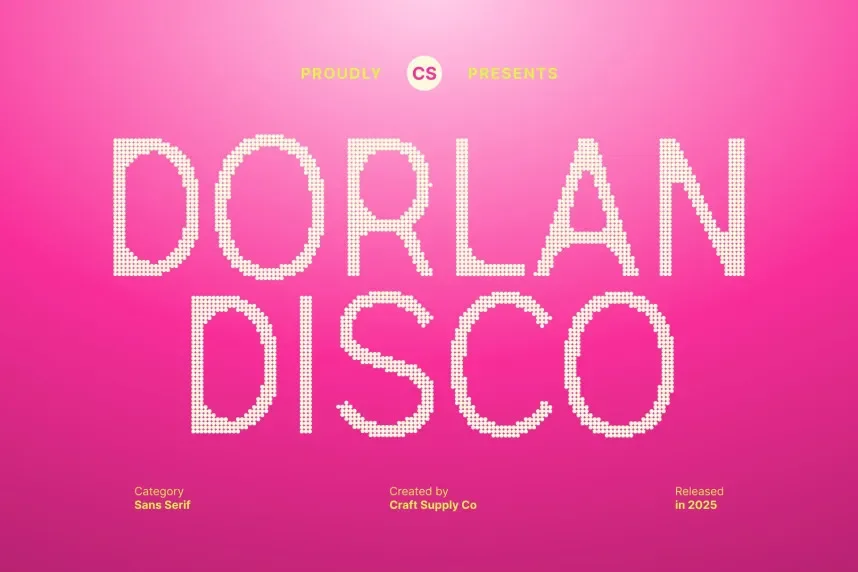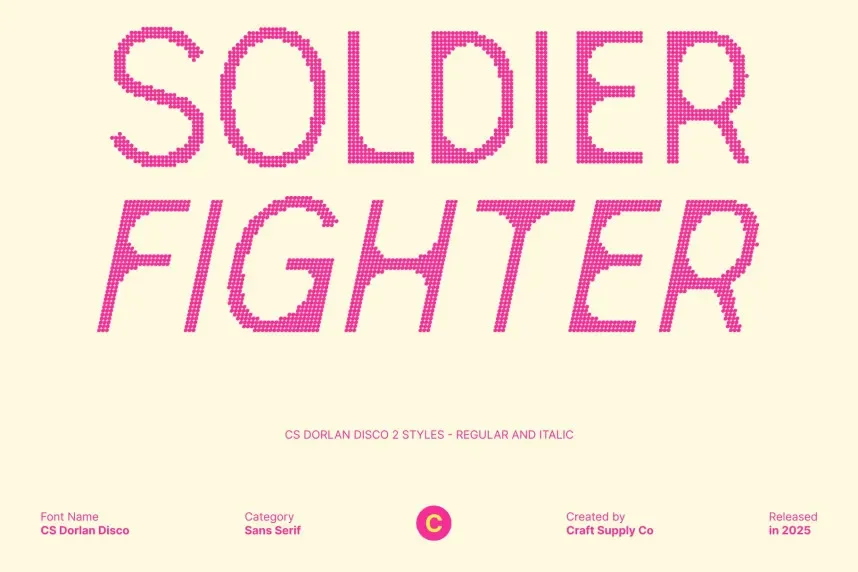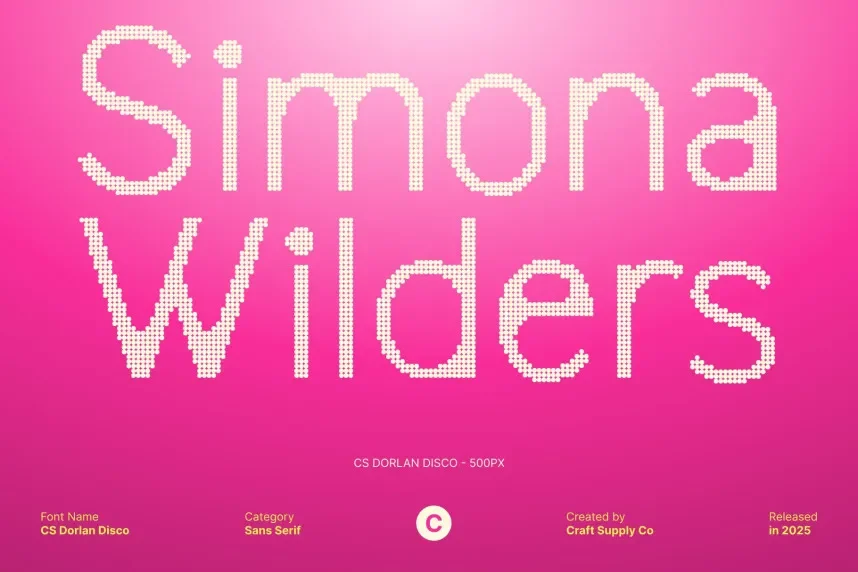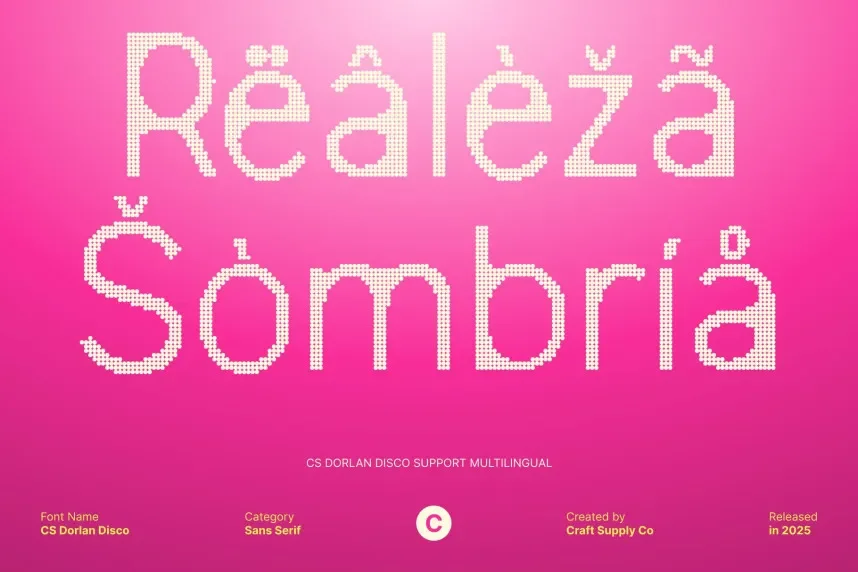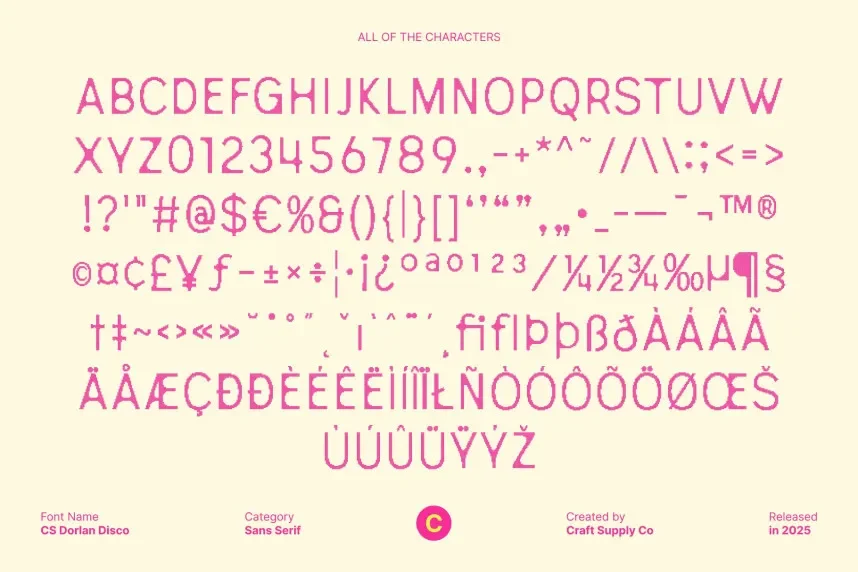
Dorlan Disco Font is a bold, playful display typeface with exaggerated letterforms and a retro disco vibe. Its thick strokes and dynamic shapes make it ideal for creative projects, including event posters, branding, and promotional material that require high energy and attention-grabbing visuals.